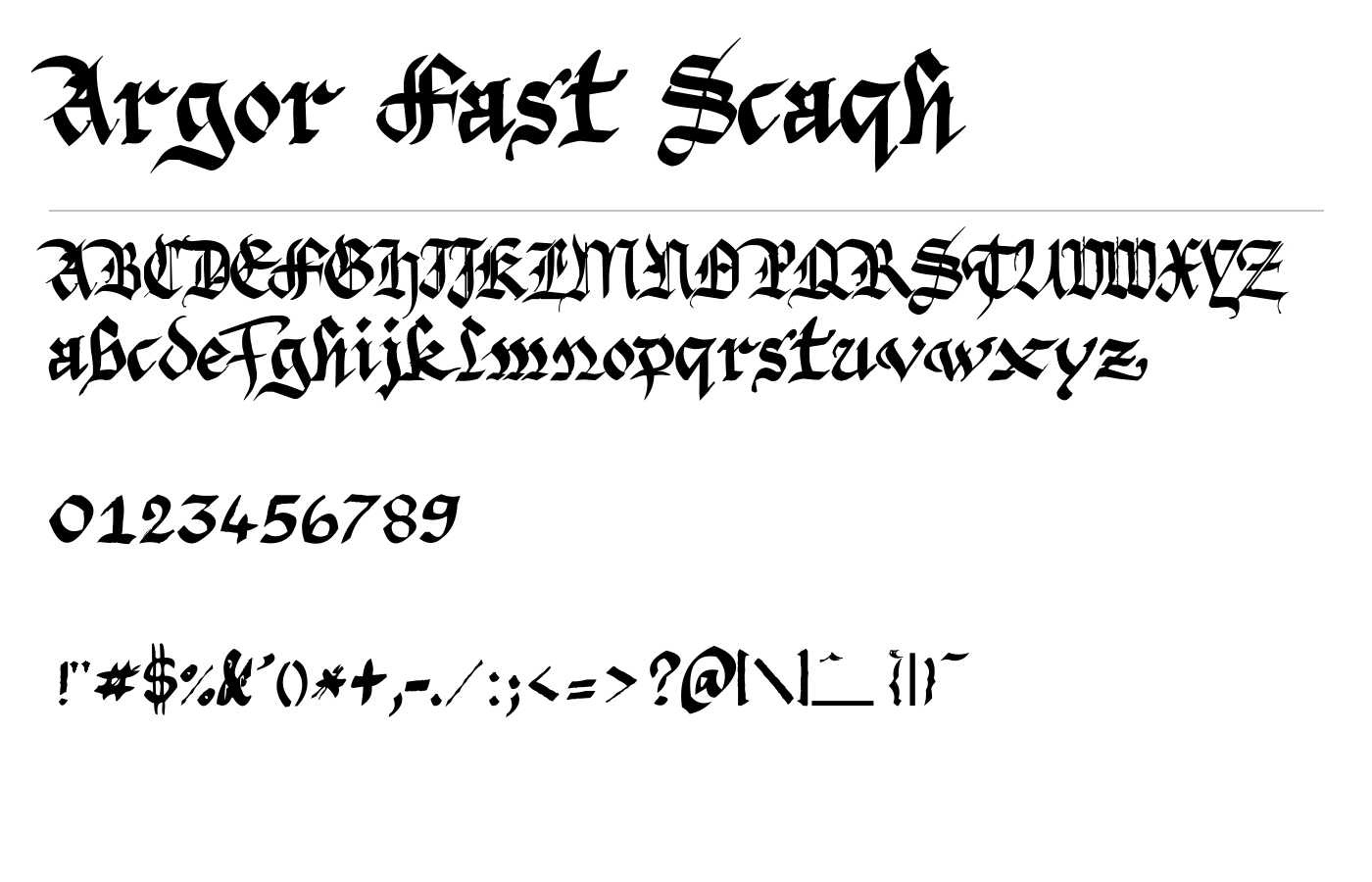
Argor Fast Scaqh is a dramatic blackletter-style font with sharp, angular strokes and pronounced thick-and-thin contrast, evoking a strong medieval or gothic feel. Its intricate, calligraphic letterforms and bold presence make it ideal for designs that aim to convey tradition, mystery, or a vintage edge, perfect for logos, headlines, or themed branding that demands attention and a sense of history.
Argor Fast Scaqh Font
About Argor Fast Scaqh Font
| Font family | Argor Fast Scaqh Font |